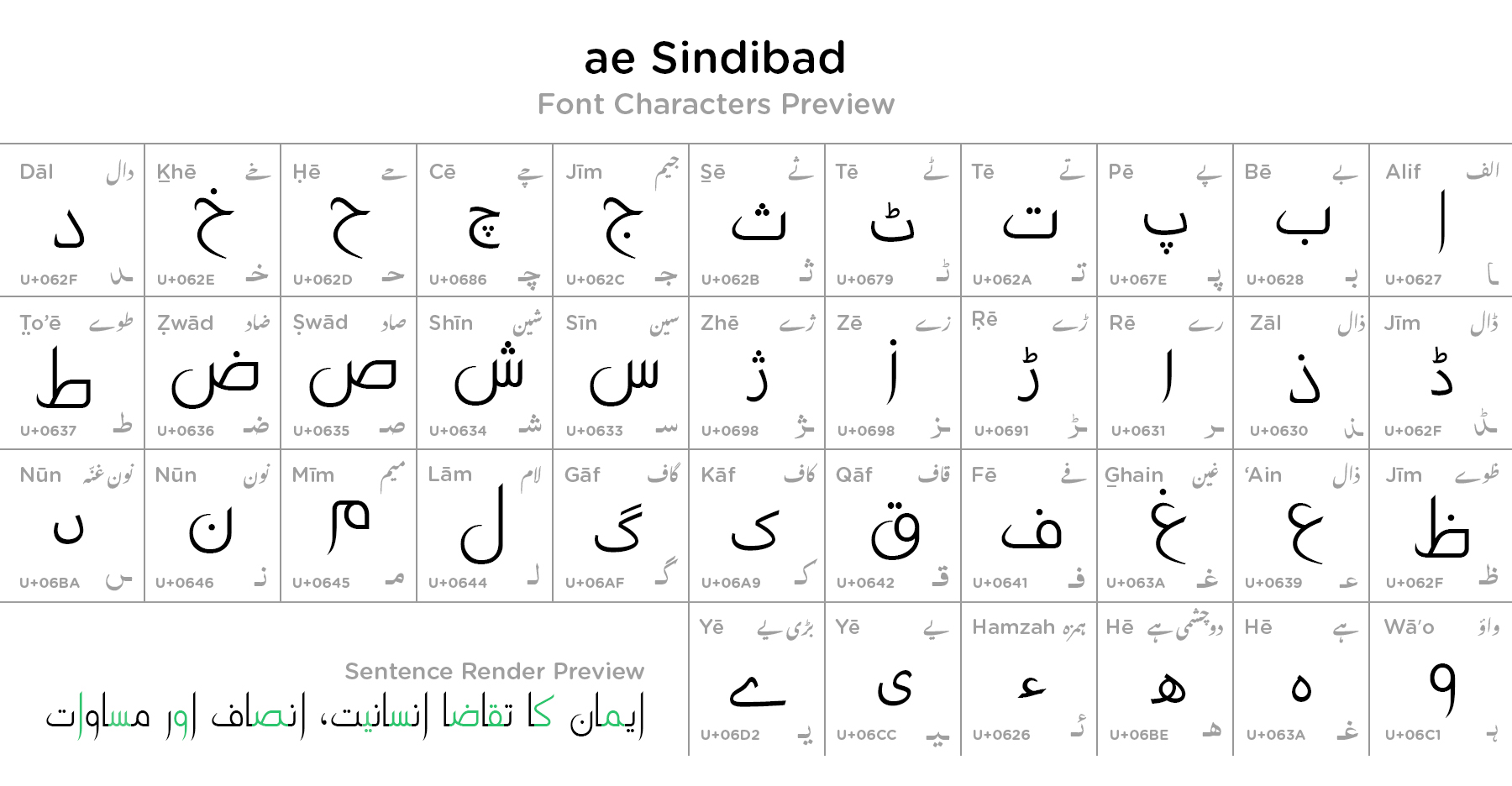
ae Sindbad is a thin and elegant Arabic font presenting a sharp and stylistic appearance. Being released in October 2017, the font includes subtle design details that make any text it uses with more presentable. It is designed by font designer Nadim Shaikli and released under the trademark of MAK Alagha. The font features graceful, sharp letters with slightly flowing terminals. The letters are connected, creating a seamless and artistic look. The font includes decorative elements within the letters, adding an artistic flair. The strokes are consistent in thickness, with thin lines for upstrokes and thicker lines for downstrokes. This contrast enhances the visual appeal. The font prefers aesthetics while maintaining readability. Text written in this font can be read perfectly, even at smaller resolutions.